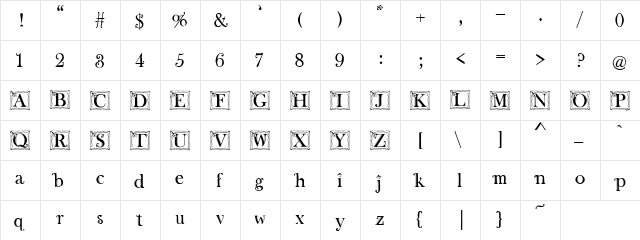
PC Viola Regular
Design Context for PC Viola Typeface
PC Viola is a composed and adaptable typeface that performs quietly and consistently across a wide range of design contexts.